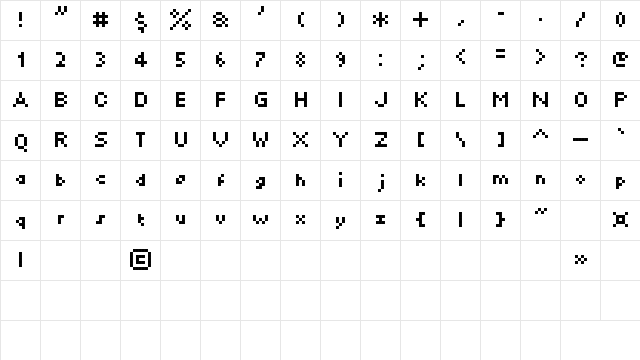
MiniKylie Font Preview
Design Context for MiniKylie Typeface
MiniKylie offers clean, dependable letterforms without strong stylistic allegiance, making it a practical choice for designers who need flexibility.